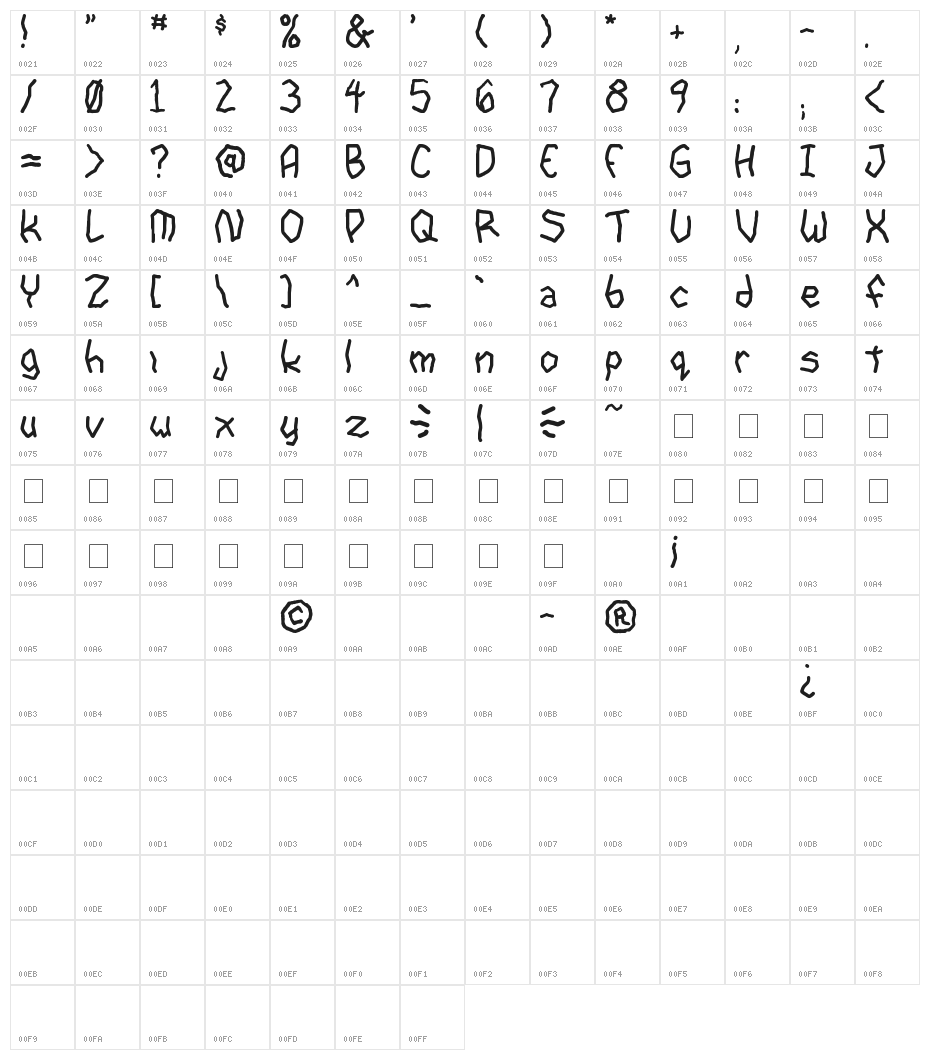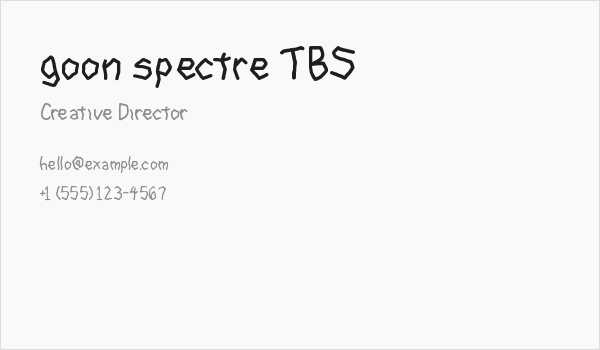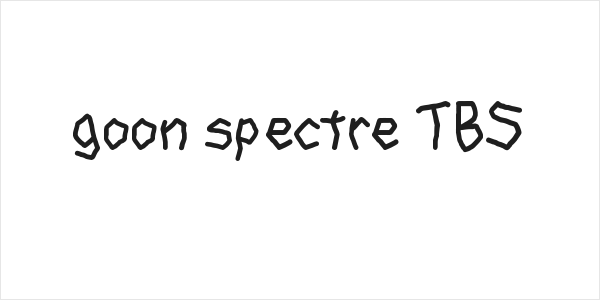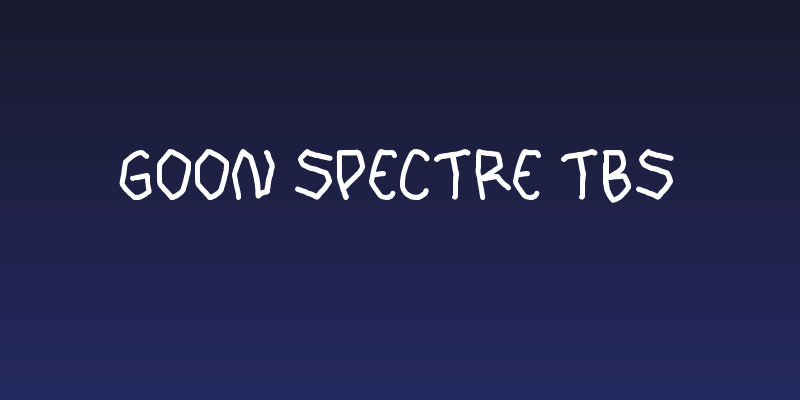
goon spectre TBS Font
goon spectre TBS Description
This font features a unique, hand-drawn style with irregular, wavy lines that give it a playful and informal appearance. The characters are bold and slightly distorted, creating a sense of movement and energy. The uppercase and lowercase letters maintain a consistent style, with rounded edges and varying stroke widths that add to the font's quirky charm. Numbers and special characters follow the same design principles, ensuring a cohesive look across all glyphs. This font's distinct personality makes it ideal for creative projects that require a touch of whimsy and individuality.
Proposed ProjectsIdeal for children's books, comic strips, playful branding, and creative posters.